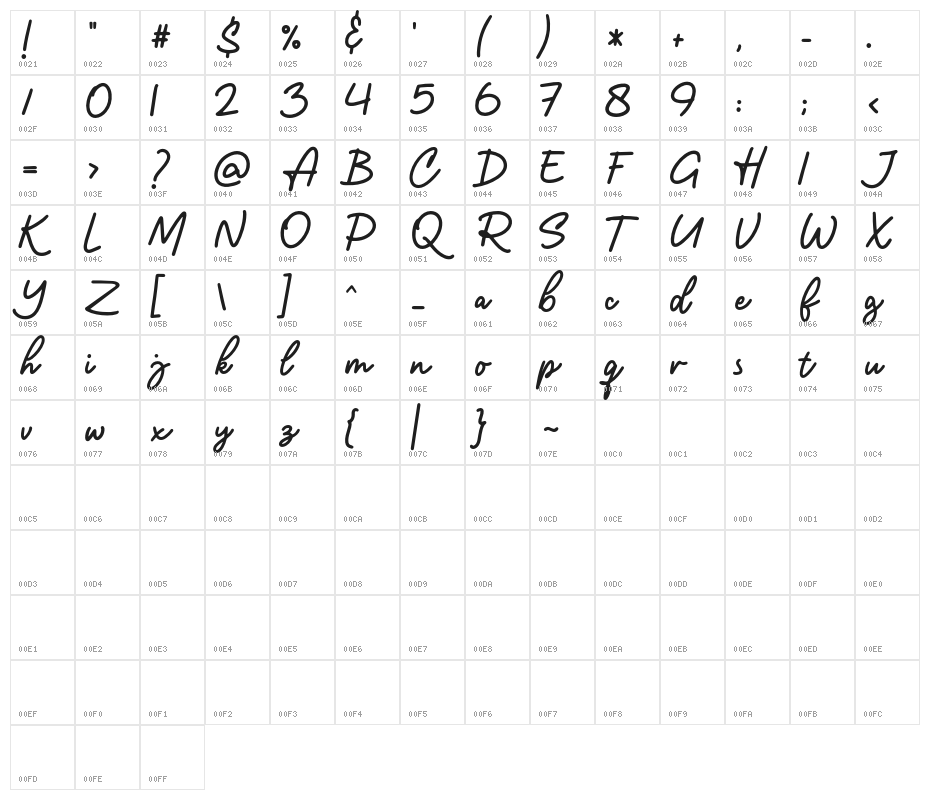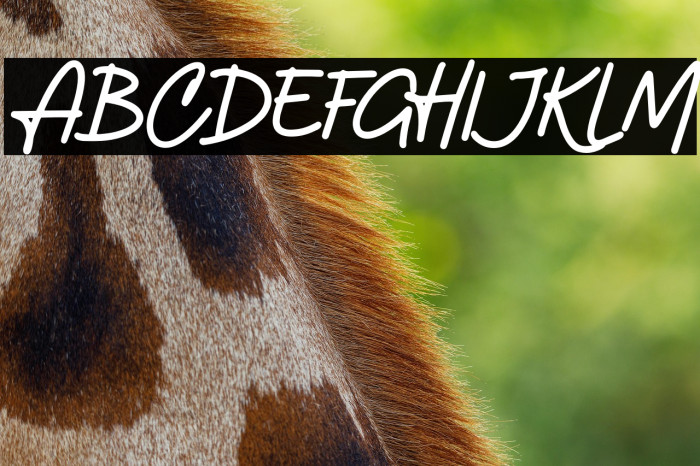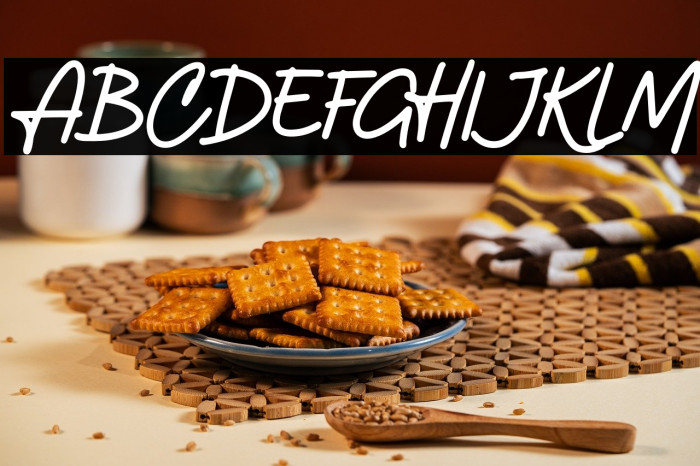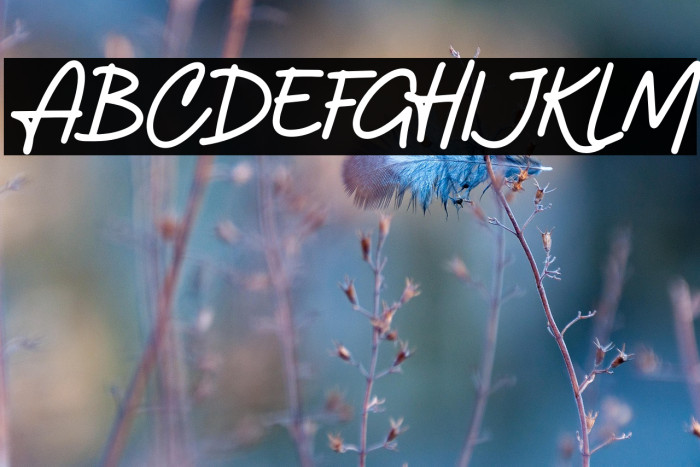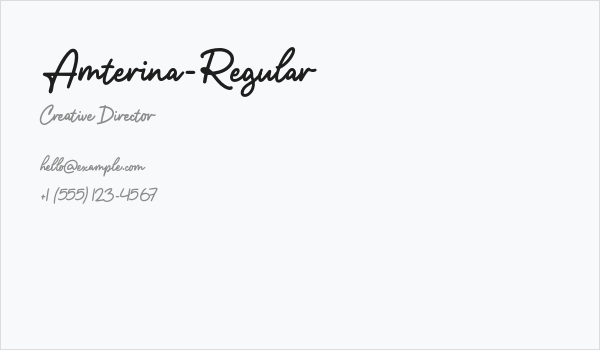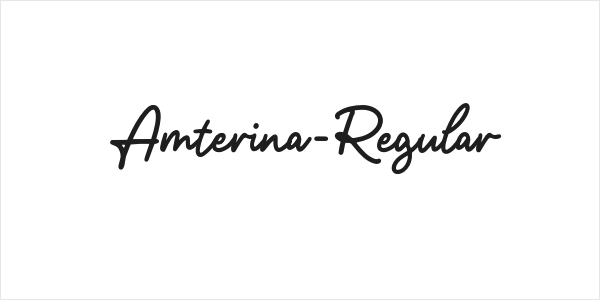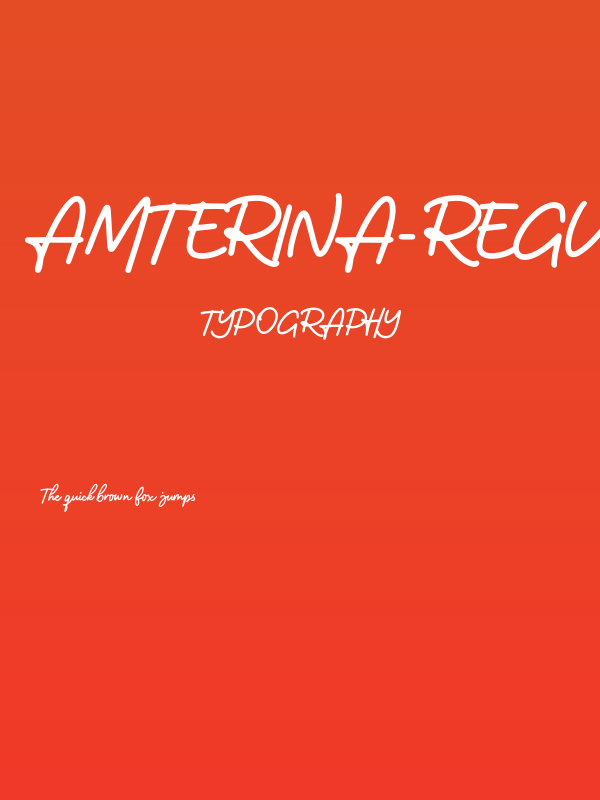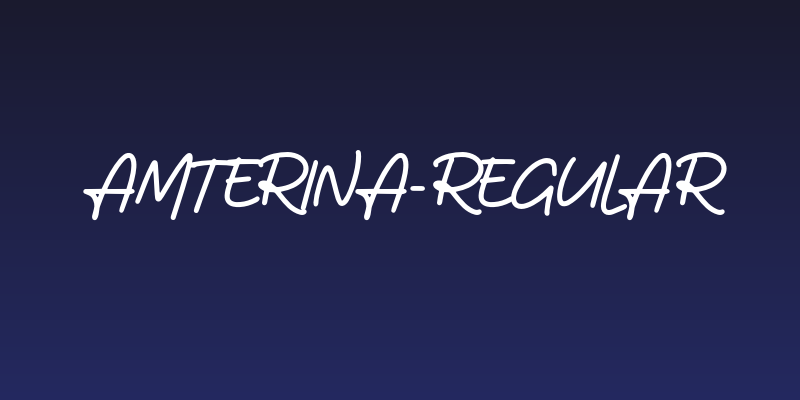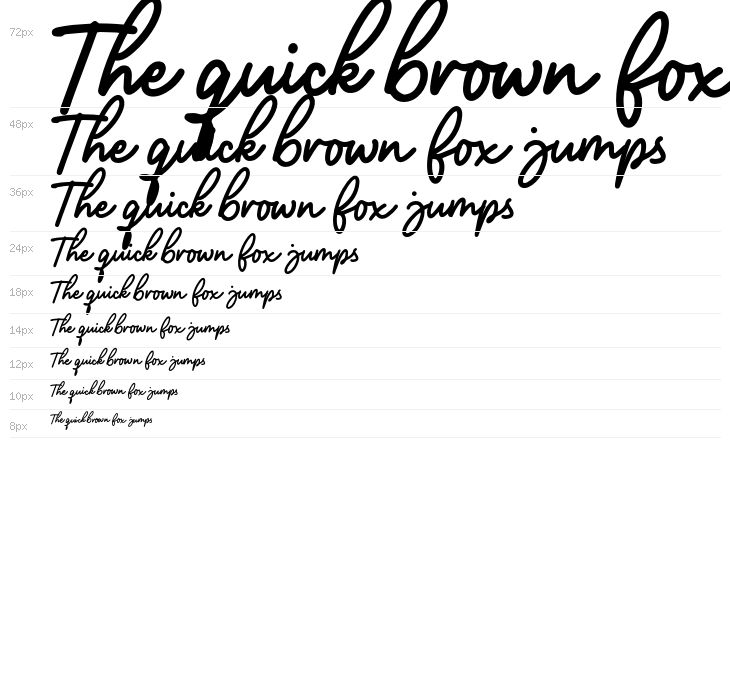
Amterina-Regular Font
Amterina-Regular Description
This font features a flowing, cursive style that exudes elegance and fluidity. The uppercase letters are bold and slightly slanted, giving a sense of movement and dynamism. The lowercase characters maintain a consistent flow, with smooth connections between letters, enhancing the script-like appearance. Numbers are well-integrated into the design, maintaining the same cursive style, which adds a cohesive look across all characters. Special characters are thoughtfully crafted to match the overall aesthetic, ensuring they blend seamlessly with the alphabetic characters. This font is ideal for projects that require a personal touch, such as invitations, greeting cards, or branding materials that aim to convey sophistication and warmth.